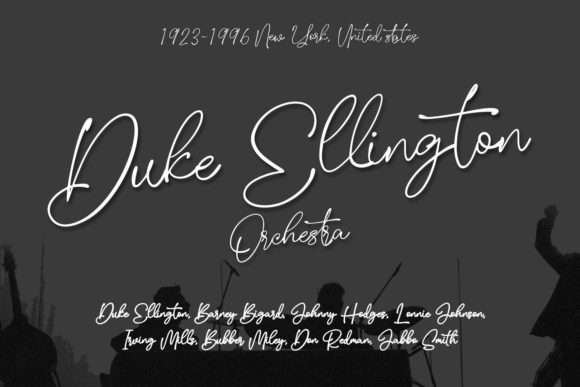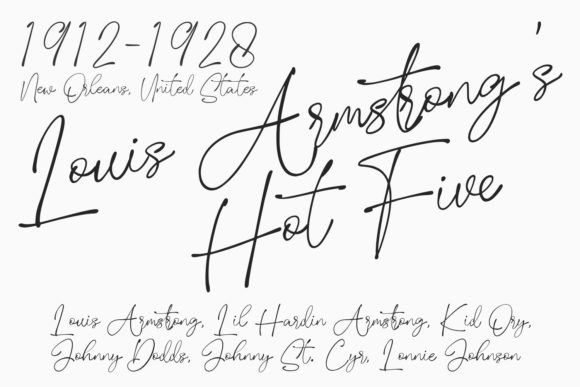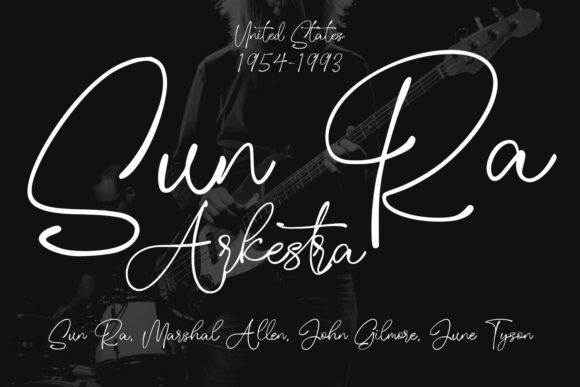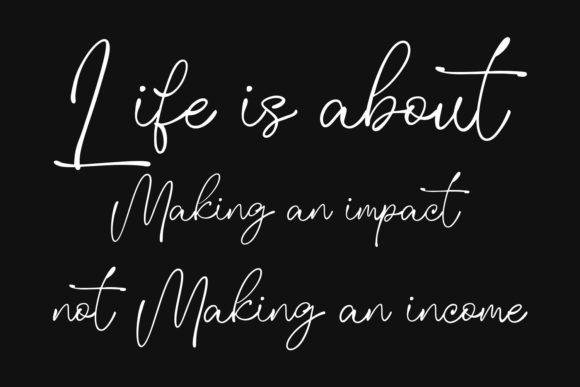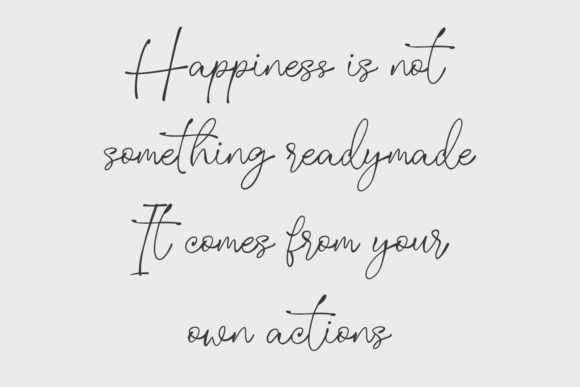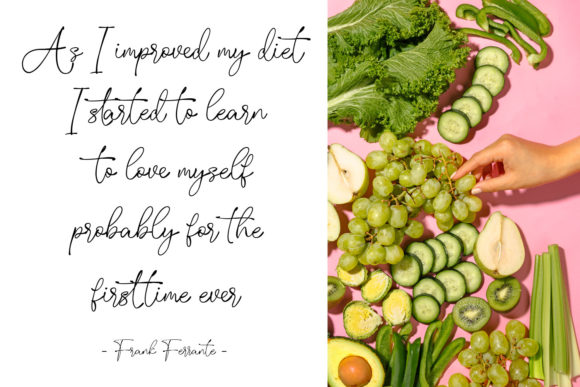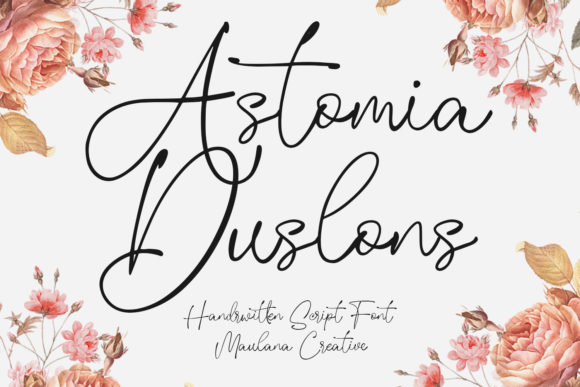
Astomia Duslons Font: Elevate Your Designs with a Touch of Elegance and Whimsy
In the vast and ever-evolving world of typography, finding the perfect font that combines elegance, whimsy, and versatility can be a daunting task. However, for designers and crafters on the lookout for a unique and captivating script font, Astomia Duslons emerges as a stellar choice. This fancy and casual script font is not just a typeface; it’s an experience that brings a blend of sophistication and playfulness to any design project.
The Essence of Astomia Duslons
Astomia Duslons is characterized by its light pen contrast strokes, which give it a distinctively elegant feel. Unlike heavy, bold fonts, Astomia Duslons offers a subtle sophistication that can elevate any design without overpowering it. This feature makes it an ideal choice for projects that require a touch of refinement and poise.
One of the standout features of Astomia Duslons is its fun and engaging characters. The font comes with a set of characters that are not only beautifully designed but also infused with a bit of playfulness. This playful aspect ensures that your designs don’t just convey information but also evoke emotions and create connections with your audience.
Ligatures and Character Set
Astomia Duslons also boasts a thoughtful inclusion of ligatures, which are essential for script fonts. Ligatures in typography refer to the connection between two or more letters that are designed to blend together in a visually appealing way. This feature in Astomia Duslons enhances the fluidity and harmony of the text, making it more readable and aesthetically pleasing. The font’s character set is extensive and balanced, ensuring that it meets the diverse needs of designers.
What makes Astomia Duslons truly versatile is its ability to fit seamlessly into a large design pool. Whether you’re working on a branding project, a website design, a craft project, or any other creative endeavor, this font can adapt and complement your design vision. Its balanced character ensures that it works well in various contexts, from headlines and titles to longer body texts.
Why Choose Astomia Duslons?
For designers and crafters, the choice of font can make or break a project. Here are a few reasons why Astomia Duslons stands out:
- Elegance and Whimsy: It offers a perfect blend of elegance with its light pen contrast strokes and whimsy through its fun characters.
- Versatility: Its balanced and beautiful character makes it suitable for a wide range of design projects.
- Readability: The inclusion of ligatures and a thoughtful character set enhances readability.
- Uniqueness: Astomia Duslons brings a unique flair to your designs, setting them apart from more conventional typefaces.
Using Astomia Duslons in Your Projects
For crafters working on projects like handmade cards, invitations, or DIY signage, Astomia Duslons can add a professional and personal touch. Its clear and elegant appearance ensures that your message is conveyed with style and sophistication.
Astomia Duslons is more than just a font; it’s a design companion that brings a unique blend of elegance, whimsy, and versatility to your projects. Whether you’re a professional designer or a crafting enthusiast, this fancy and casual script font has the potential to elevate your designs and make them stand out. With its light pen contrast strokes, fun characters, ligatures, and balanced character set, Astomia Duslons is poised to become a favorite in your typography arsenal.